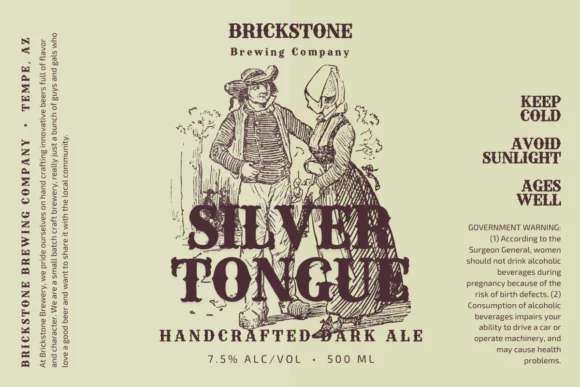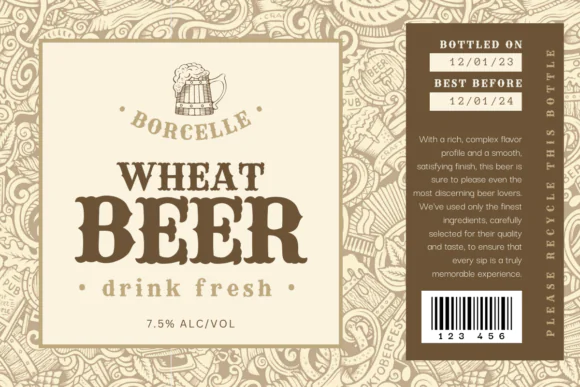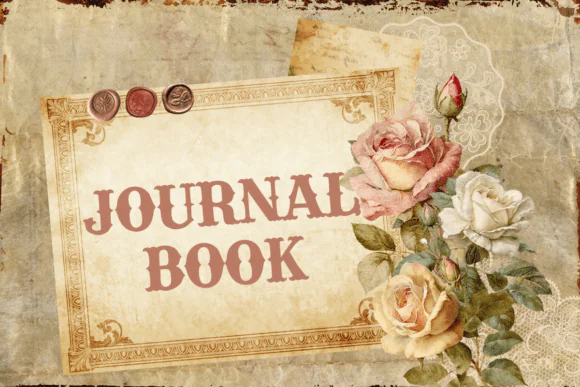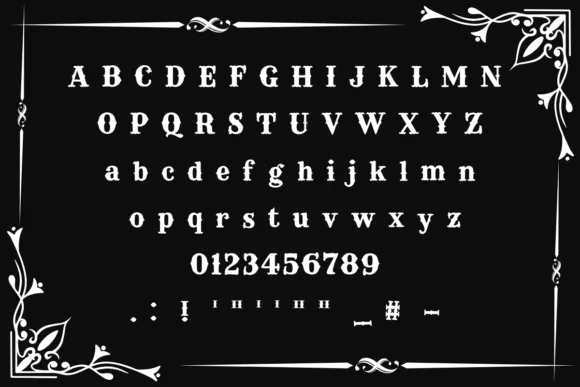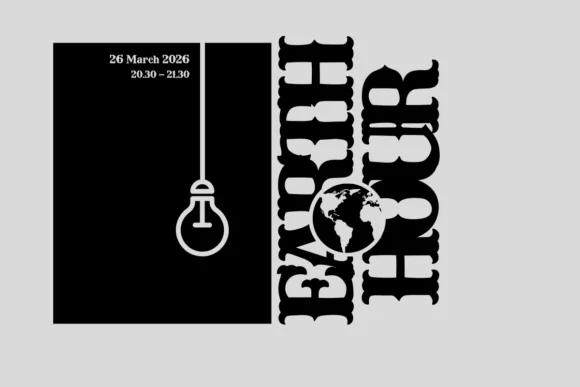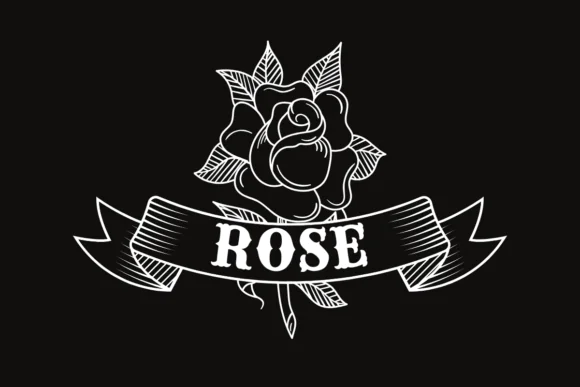
Tattoo Font | Bold Thick Blackletter Font with Glyphs & Swashes for Tattoo Designs, Logos, Apparel, Posters, Branding & Gothic Artwork
Create bold, powerful, and highly expressive designs with Tattoo Font, a thick lettered blackletter font made for projects that need a strong gothic, vintage, tattoo-inspired, and dramatic visual style.
This font is perfect for tattoo artwork, logo designs, apparel graphics, t-shirt prints, posters, album covers, stickers, labels, product packaging, branding, social media graphics, wall art, motorcycle-themed designs, barbershop branding, streetwear designs, and other creative projects that need a confident and eye-catching typographic look.
Tattoo Font has a bold blackletter character that gives your design a classic, edgy, and handcrafted feel. Its thick lettering makes it suitable for display text, strong headlines, decorative titles, and statement graphics. The font is also PUA encoded, which means you can easily access glyphs and swashes to create more decorative and customized typography.
• Tattoo-style designs
• Gothic logos and branding
• T-shirt and hoodie prints
• Streetwear apparel
• Posters and banners
• Album covers
• Stickers and labels
• Product packaging
• Barbershop branding
• Motorcycle-themed designs
• Wall art and printable quotes
• Cricut and Silhouette projects
• Vintage and gothic artwork
• Bold and thick blackletter style
• Strong tattoo-inspired appearance
• Great for logos, apparel, posters, and branding
• Perfect for gothic, vintage, edgy, and masculine designs
• Makes headlines and display text stand out confidently
Tattoo Font is a strong choice for designers, tattoo artists, crafters, small business owners, and digital product sellers who want to create bold, dramatic, and professional-looking designs with a classic blackletter personality.